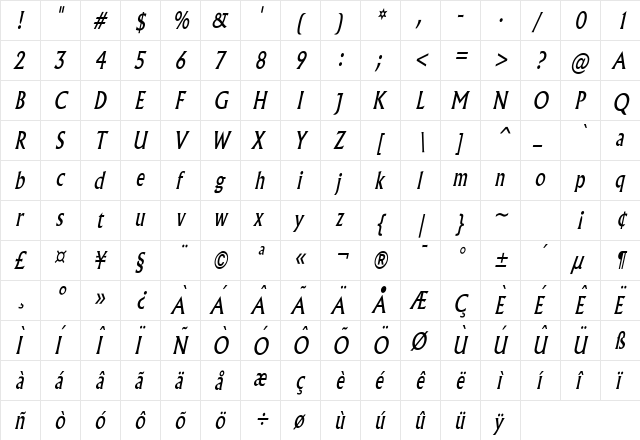
Flair Thin Italic
Design Context for Flair Thin Typeface
Flair Thin offers clean, dependable letterforms without strong stylistic allegiance, making it a practical choice for designers who need flexibility. The dynamic lean of this cut emphasises speed and emphasis in any layout. The delicate stroke weight brings airiness and refinement to layouts.
Pro Tip: Try Flair Thin for annotation and caption copy alongside an upright companion — the contrast in angle creates a dynamic but ordered typographic system.